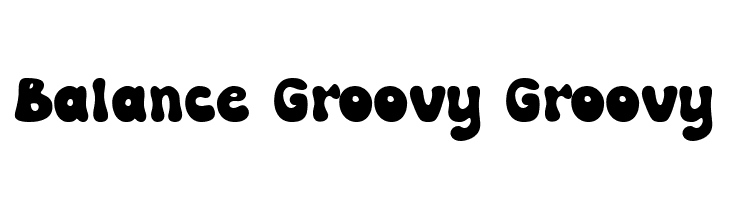
( Fonts by Rian Dryana )
A modern, bold font with smooth, rounded edges and consistent stroke width.
( Fonts by Rian Dryana )
A bold, retro font with rounded, bubbly letterforms and a playful, groovy style.
( Fonts by Tri Sakti Oktaviano )
A bold, playful font with rounded, exaggerated shapes for a whimsical look.
( Fonts by Sign Studio )
A bold, artistic font with dynamic curves and strong lines.
( Fonts by Excellent Ritma Florendia )
A playful, bold font with rounded, bubbly characters perfect for whimsical designs.
( Fonts by HansCo )
A bold, playful font with wavy, artistic characters.
( Fonts by Chequered Ink )
A bold, geometric font with a quirky and playful style.
( Fonts by Rian Dryana )
A playful, bold font with rounded, bubbly characters perfect for creative projects.
( Fonts by Edignwn Type )
A bold, distressed font with a vintage, stamp-like appearance.
( Fonts by UI Creative )
A bold, distressed font with a rugged, handcrafted appearance.